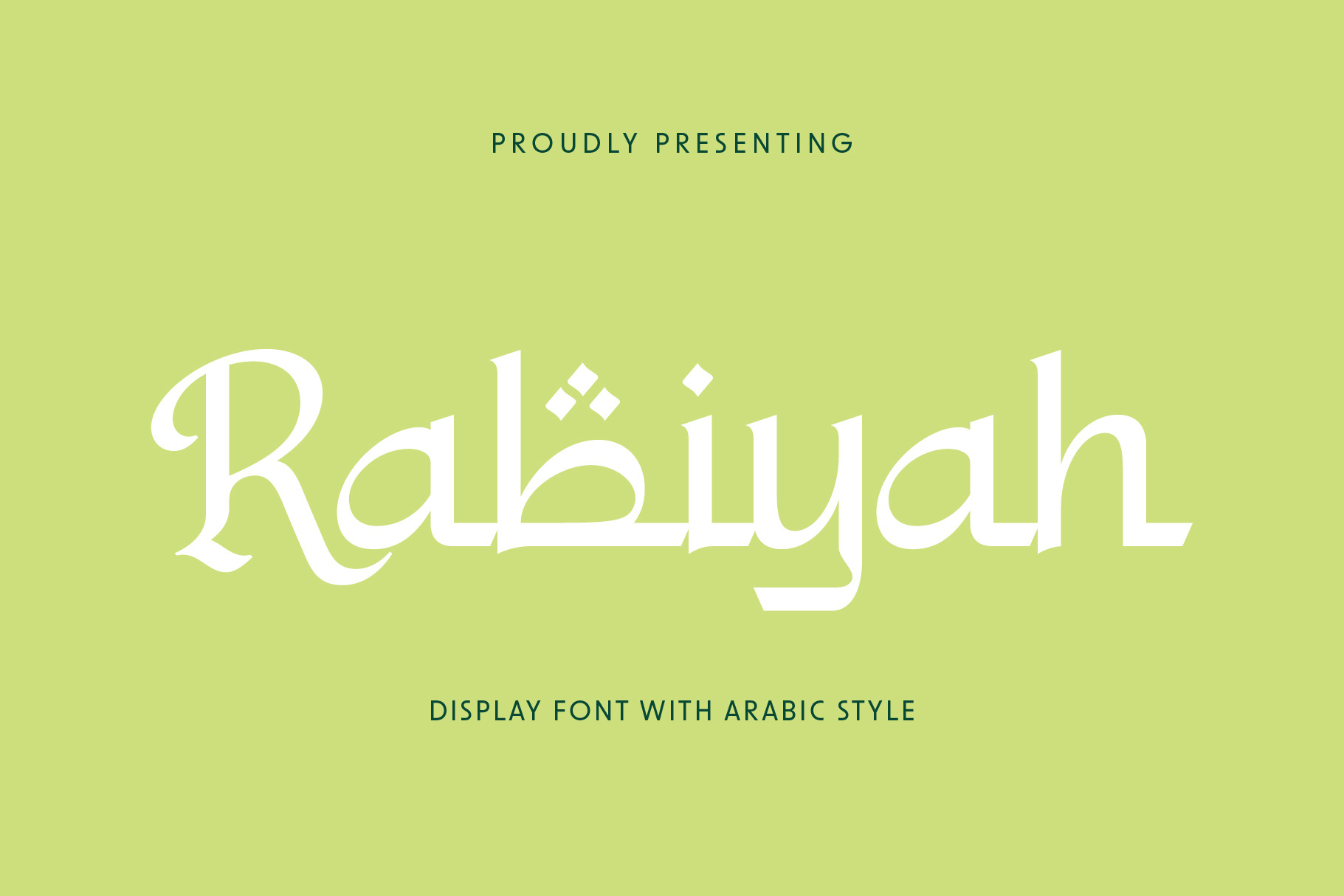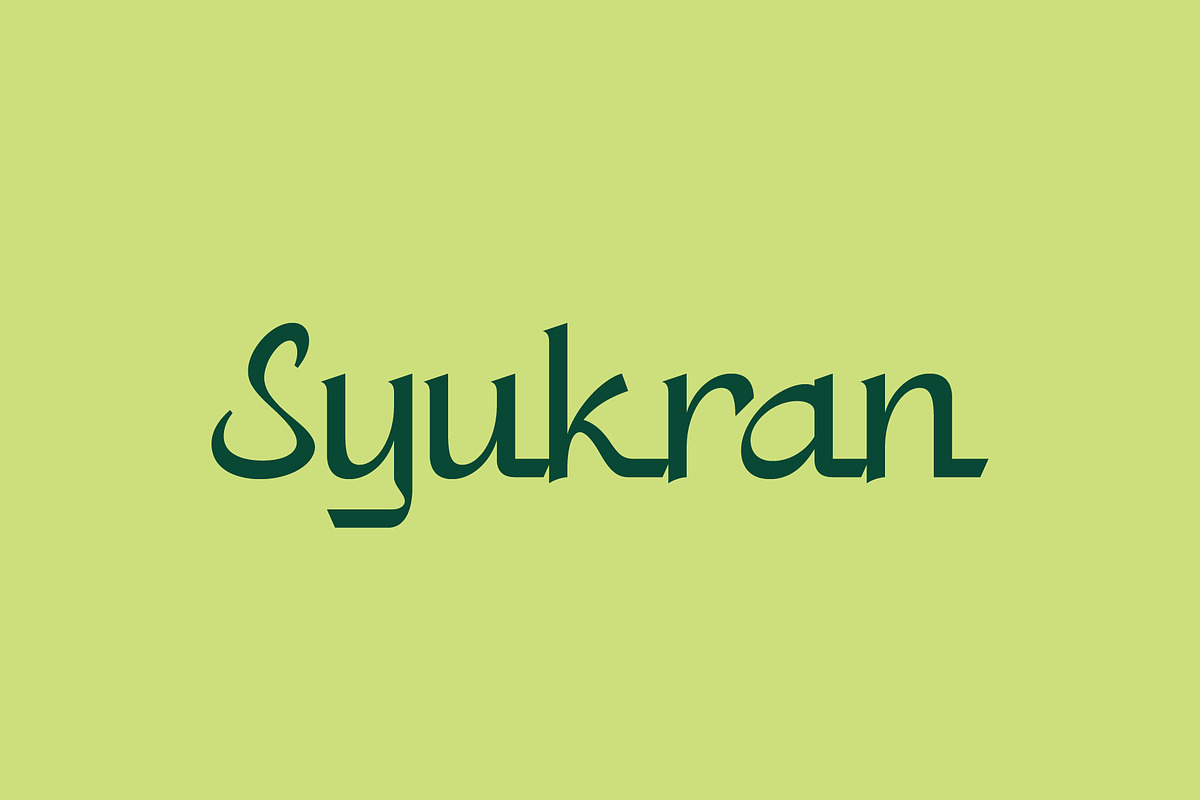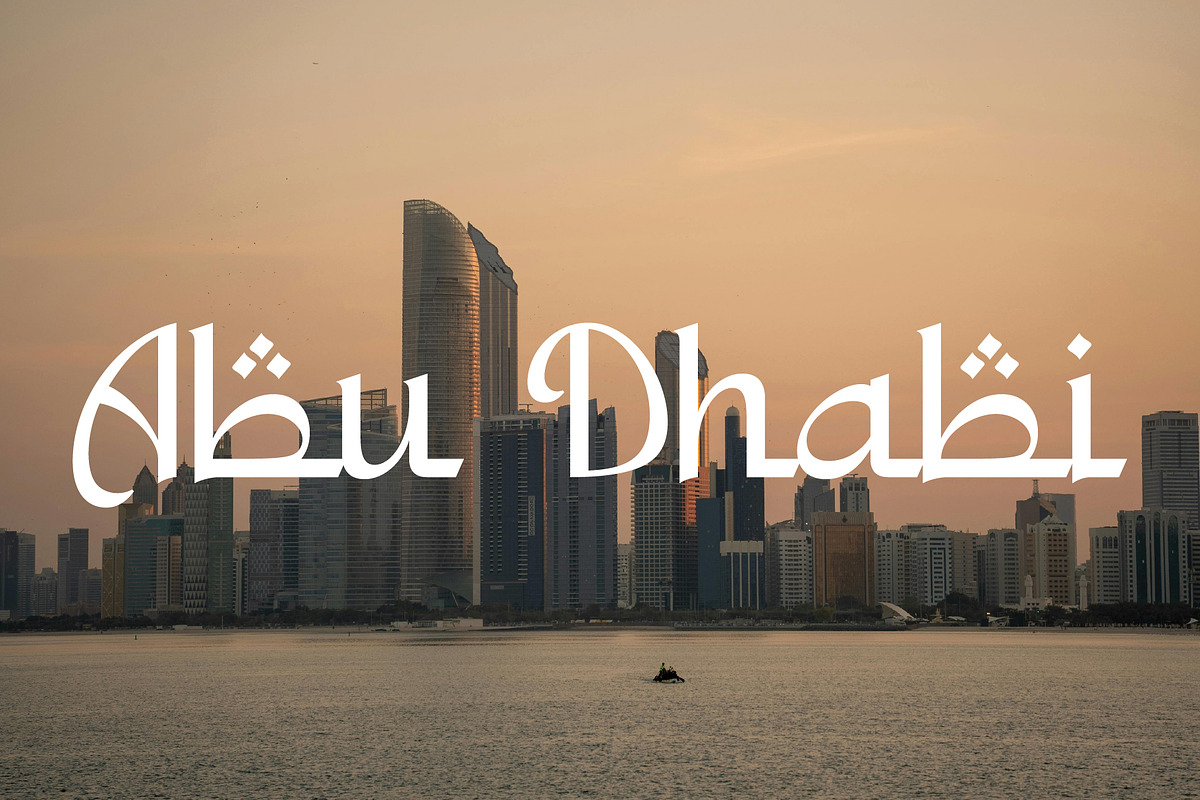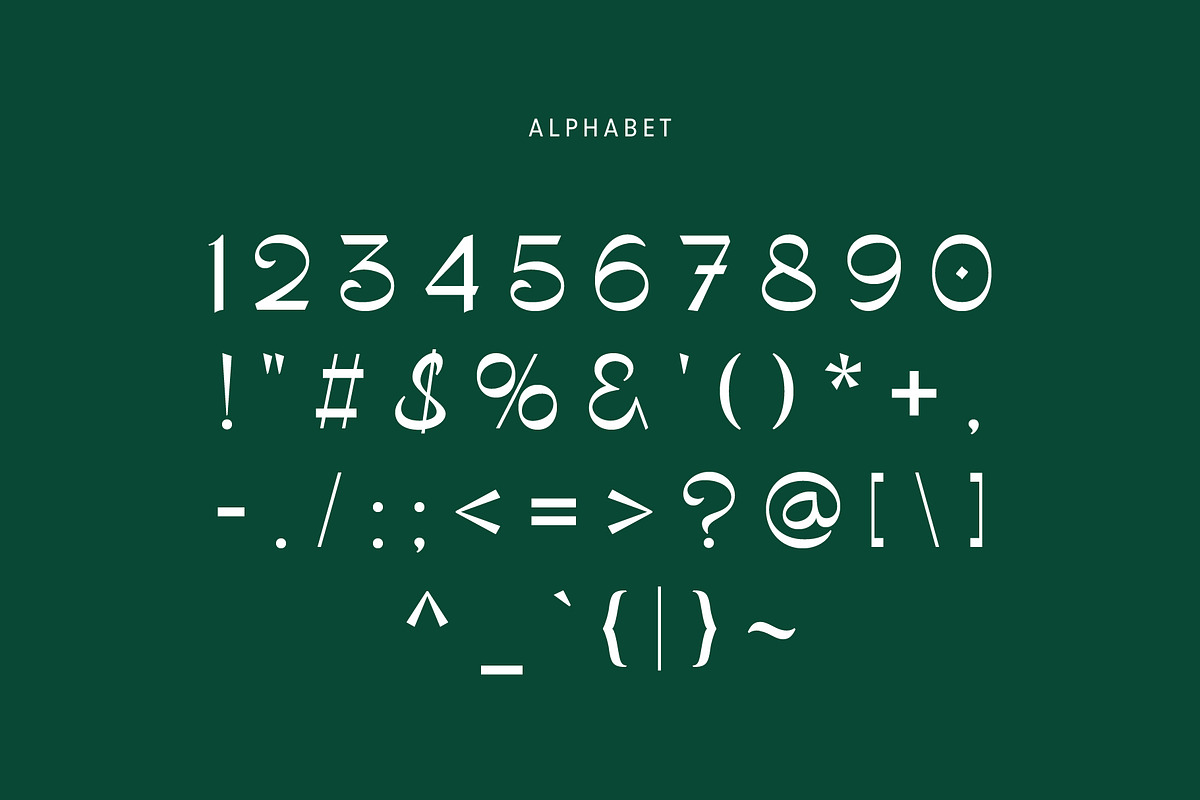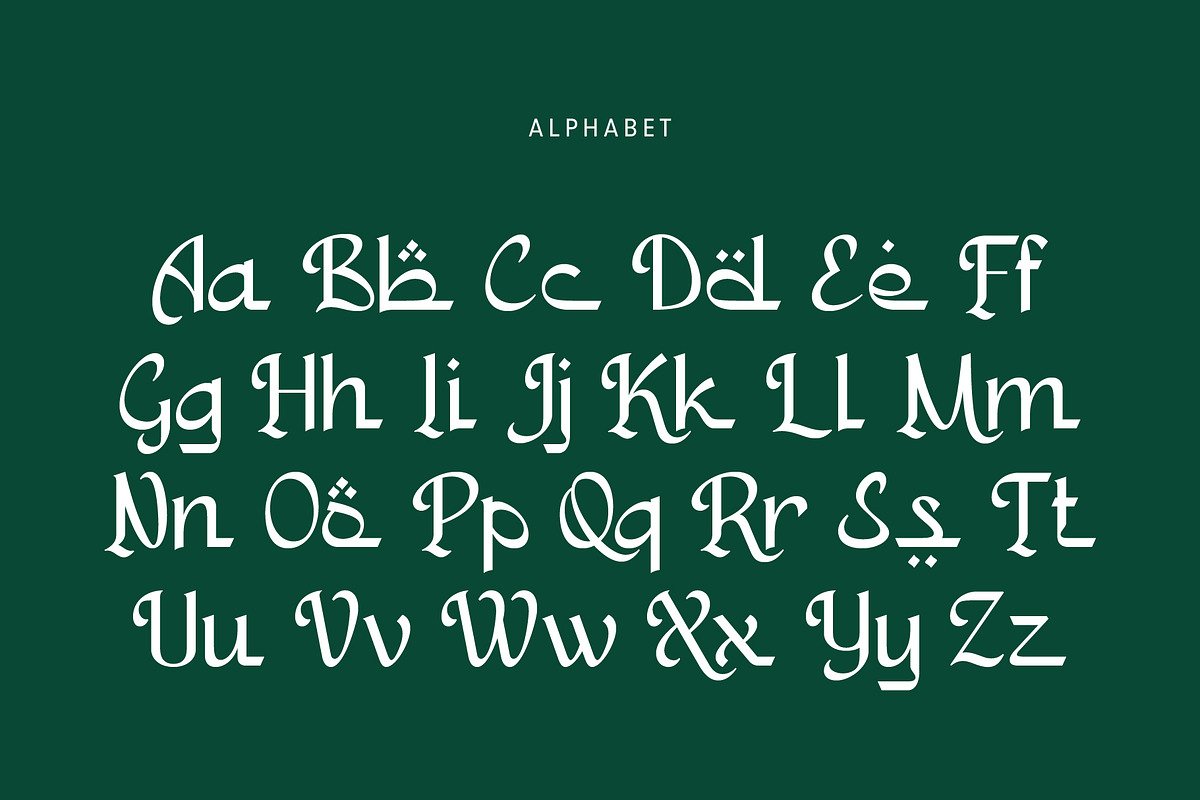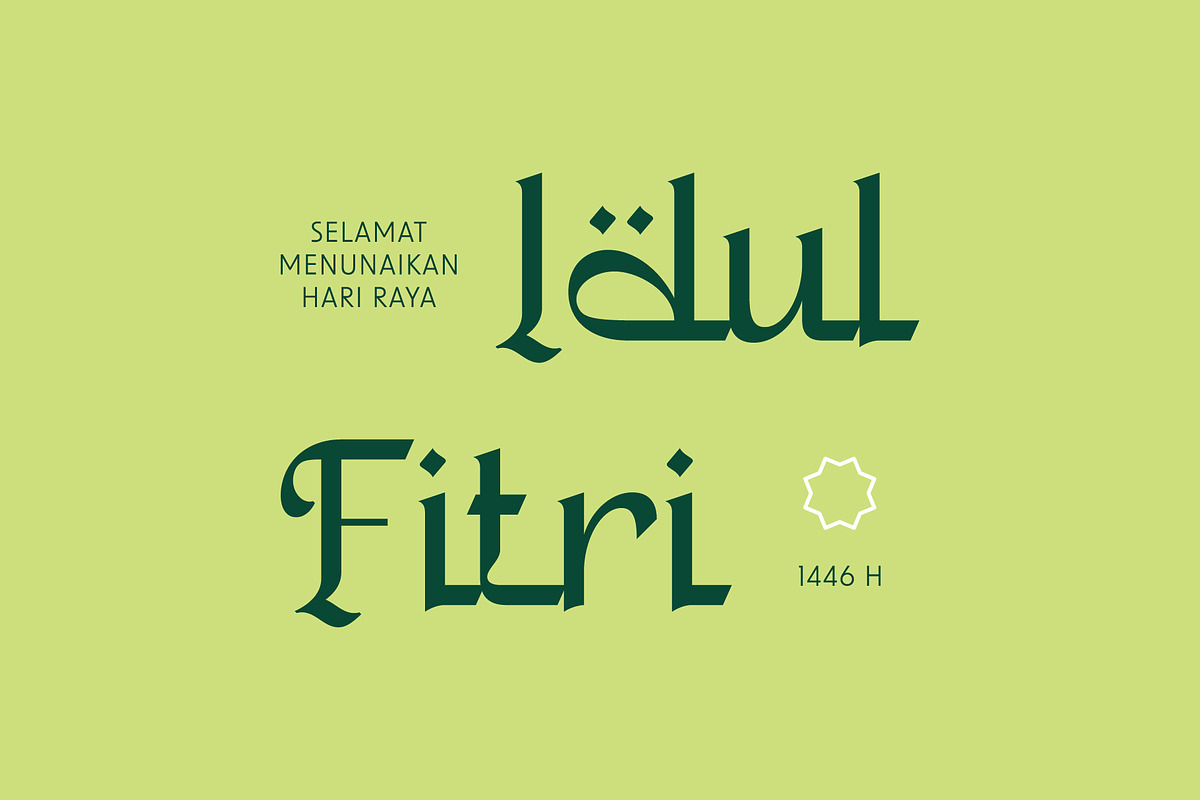
Rabiyah - Arabic Style Font
Rabiyah is a bold and elegant display font inspired by Arabic and Middle Eastern styles. It’s perfect for designs that need an Islamic or cultural touch, such as logos, product packaging, posters, or event branding.
This font includes uppercase and lowercase letters, numbers, and carefully designed characters for a clean, balanced look. Rabiyah helps you create designs that feel both traditional and modern.